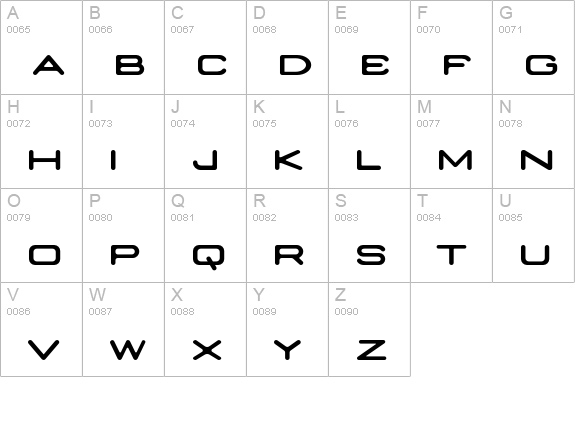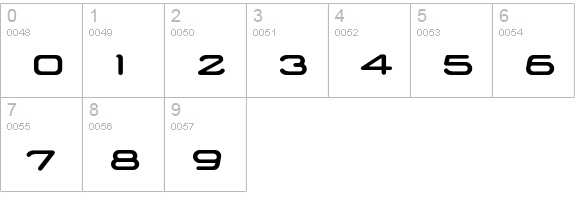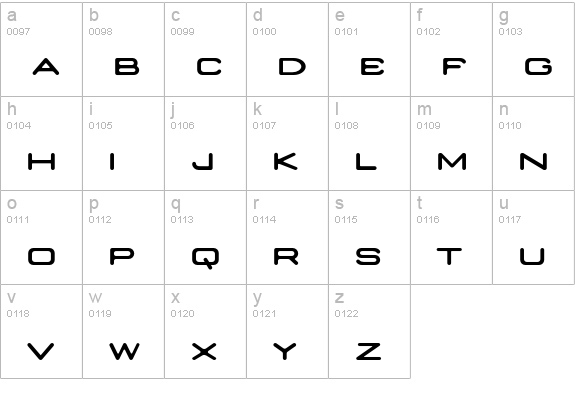
Nedian-Medium Font Details
Nedian-Medium is a balanced, medium-weight variant in the Nedian typeface family \xE2\x80\x94 well suited to sub-headlines, navigation, and balanced editorial work.
Nedian-Medium font is a versatile and modern typeface that strikes the perfect balance between sophistication and readability. With its clean lines and rounded edges, this font exudes a sense of elegance and professionalism. Whether used for headings, body text, or graphic design projects, Nedian-Medium adds a touch of style to any layout. The best part? Nedian-Medium font is available for free download at FontsMarket.com. This means you can easily access and use this high-quality font in your projects without any cost. Don't miss out on the opportunity to elevate your designs with the sleek and stylish Nedian-Medium font today!